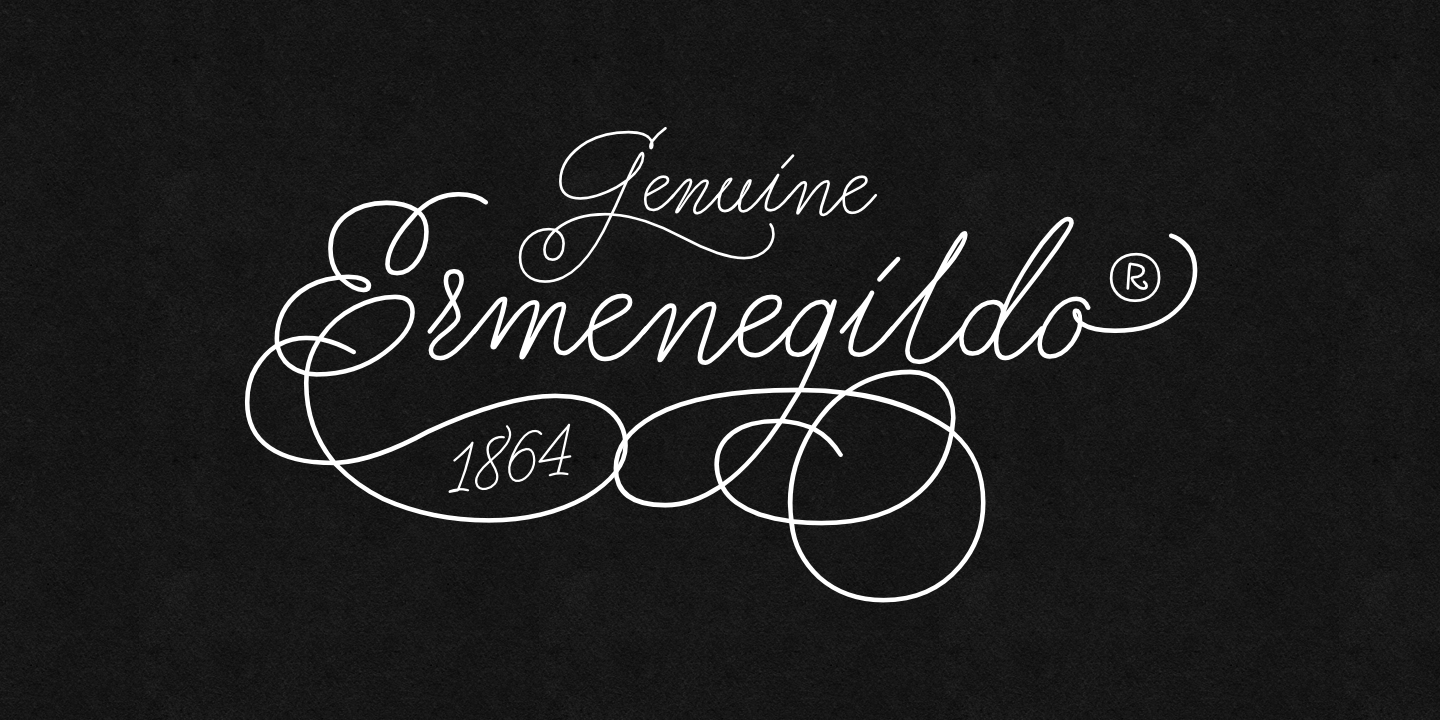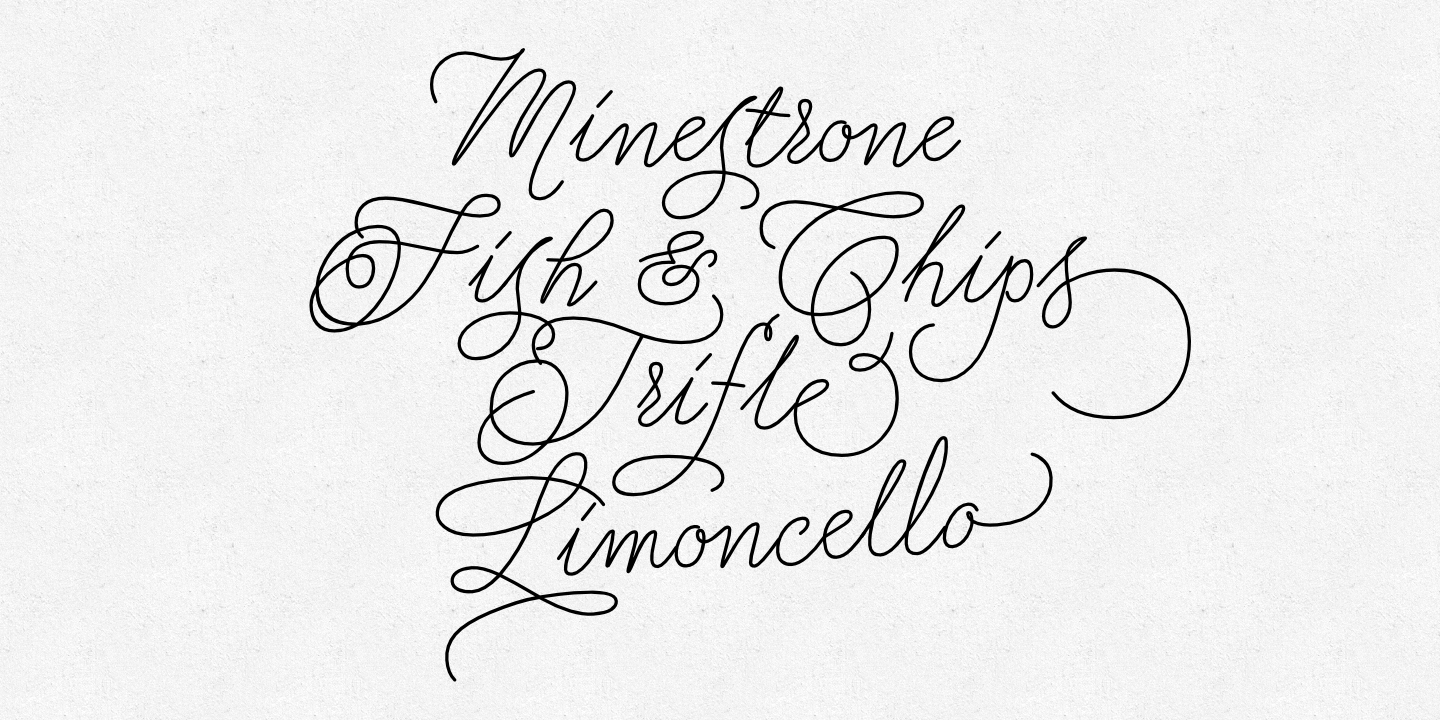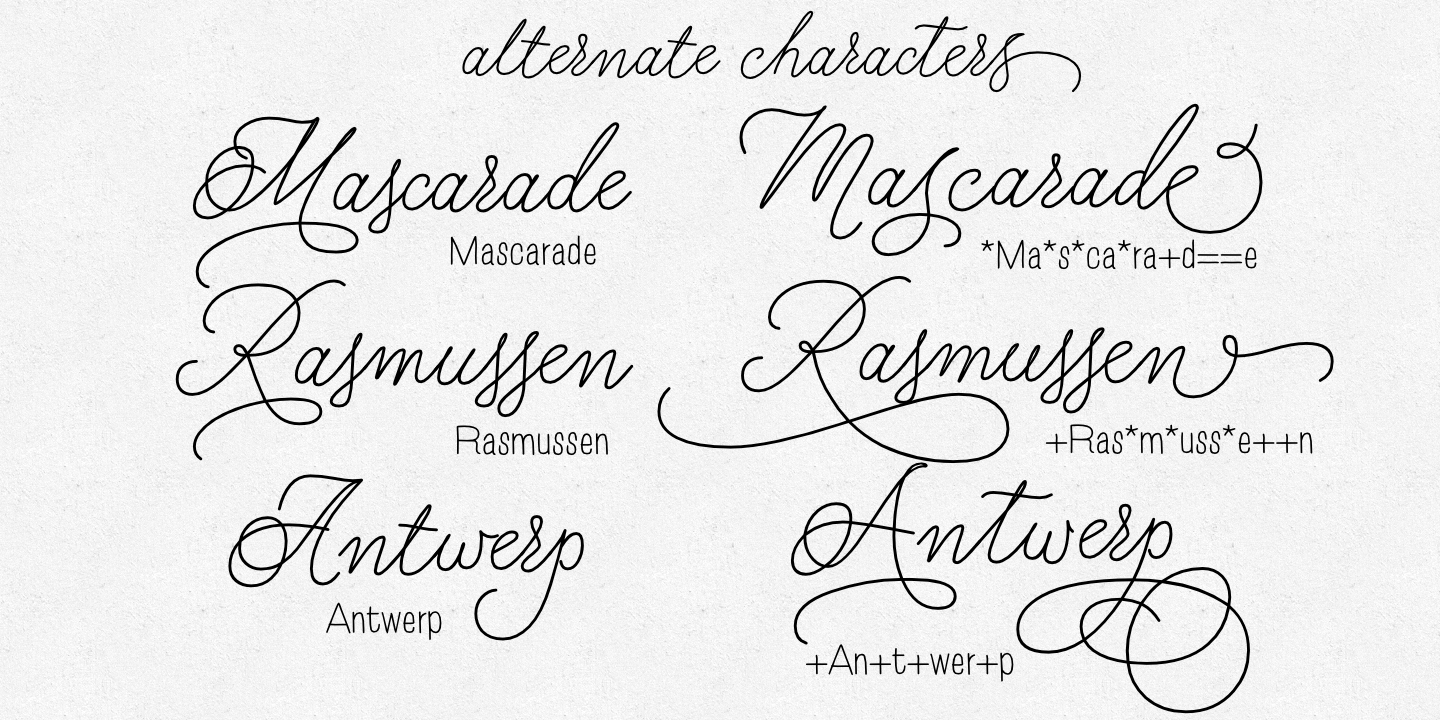
About Charlize
Charlize is a handwritten, fully connected script with ligatures to help with flow and readability. It can be used for invitations, greeting cards, posters, advertising, weddings, books, menus etc. Charlize pro is the most complete style, it contains…